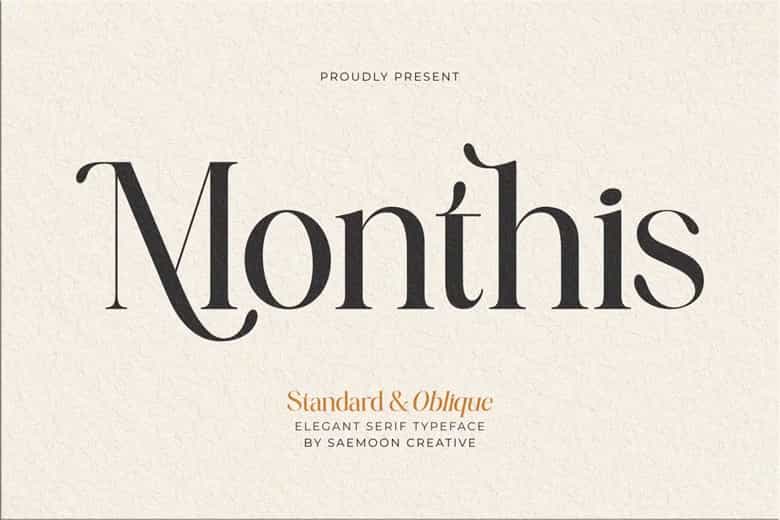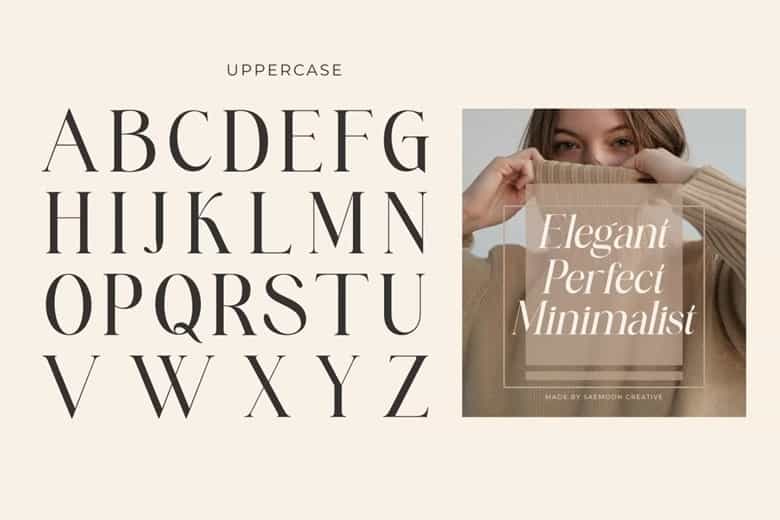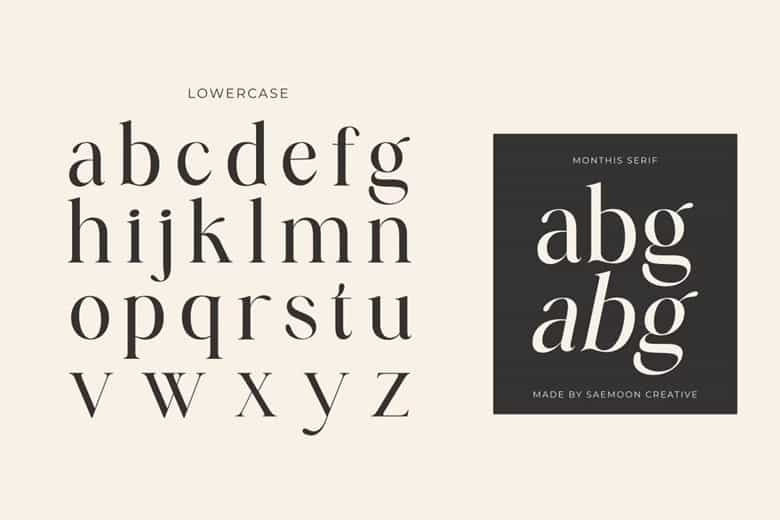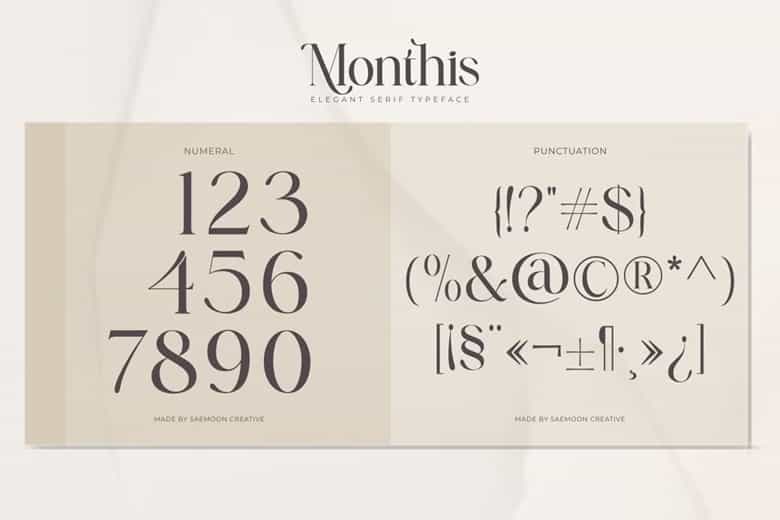
Monthis is a beautiful serif font, it is a paid font and best suitable for those who are looking for an easy clean looking font. Monthis represents a very sleek and non-complicated design, it gives a very professional look hence it would be suitable to be used in product branding logotype and other marketing related items that require a luxurious feel. The oblique developed version throws in a dynamic accent at a slant, and imparts a sense of movement without the lack of refinement.